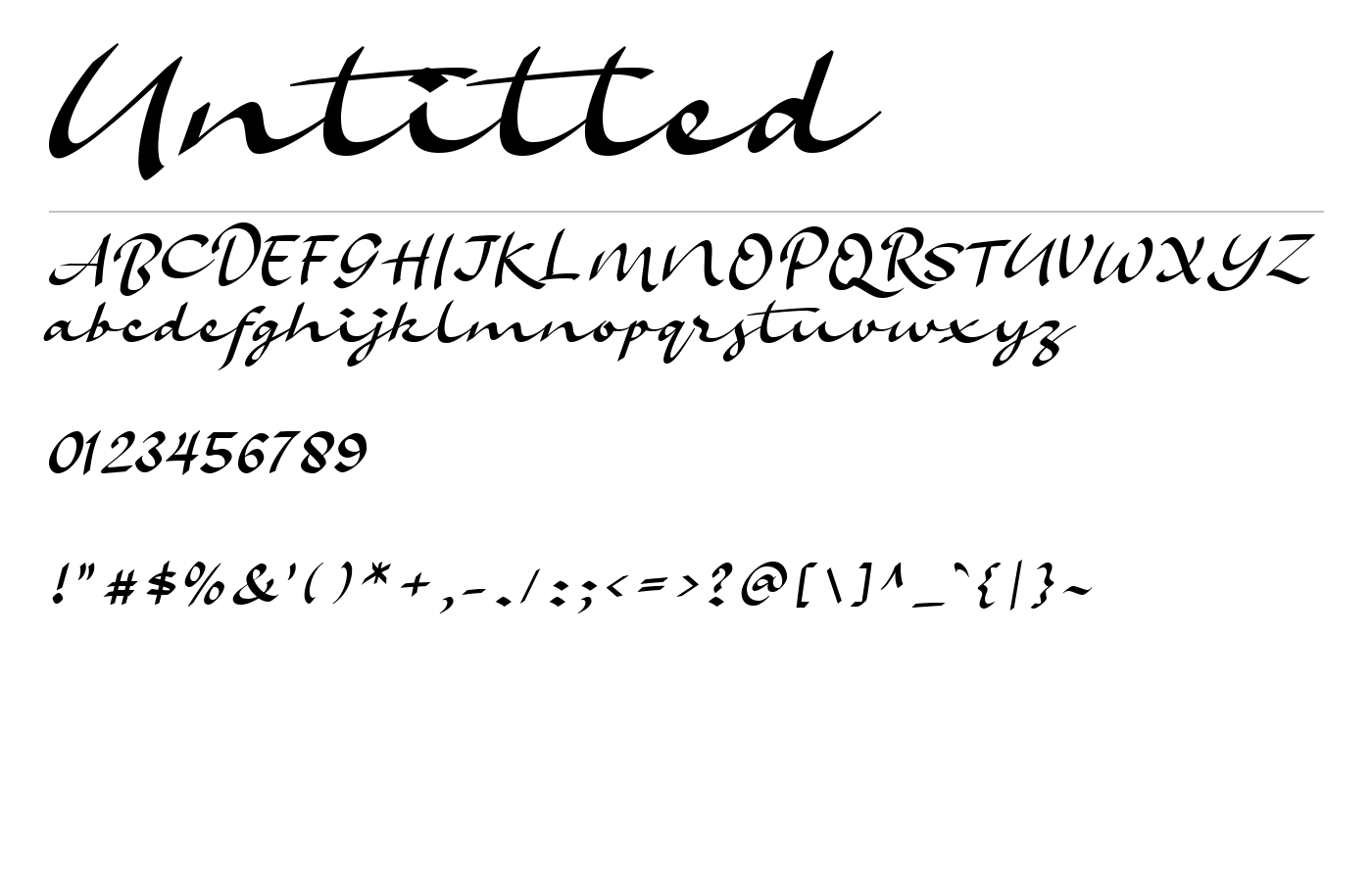
Untitled Font is an elegant script typeface with a fluid, handwritten style that features smooth, flowing strokes and moderate contrast. Its slightly italicized letterforms have a refined yet approachable feel, perfect for adding a touch of sophistication to invitations, branding, or editorial headlines. This font works well where a graceful, personal touch is desired, combining classic charm with modern readability.